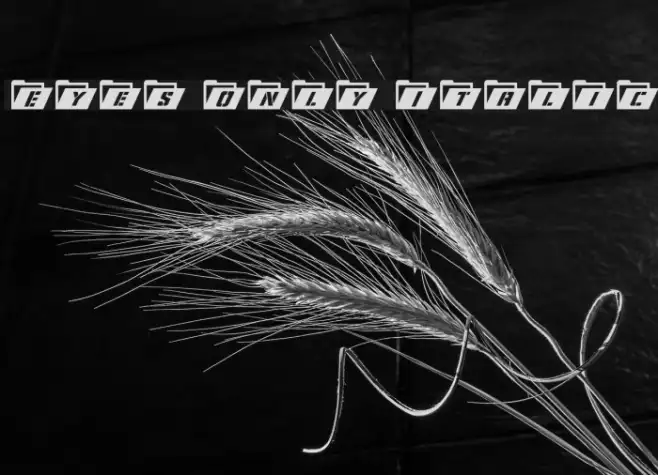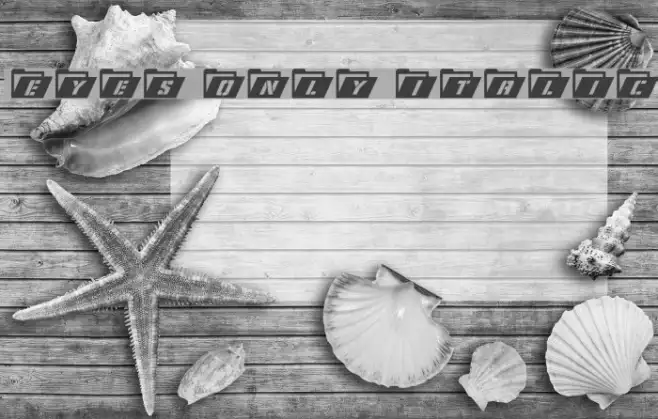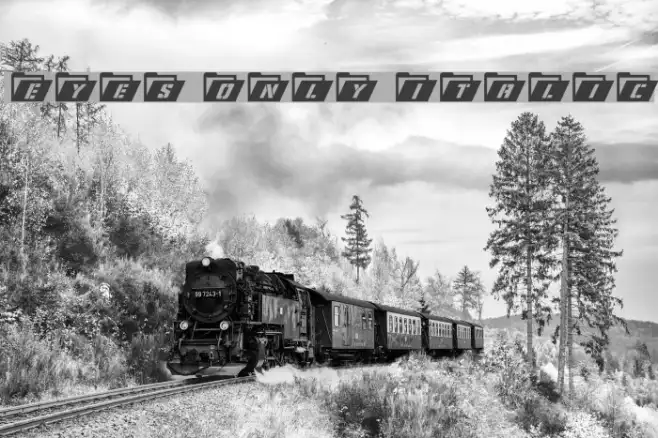
Eyes Only Italic Font
Eyes Only Italic Description
This font features a bold, italicized style with a distinct, futuristic flair. Each character is enclosed in a unique, angular shape that resembles a folder or tab, giving it a tech-inspired appearance. The letters are slanted forward, enhancing the dynamic and fast-paced feel. The strokes are thick and consistent, providing a strong visual impact. The numbers and special characters follow the same design principles, ensuring uniformity across all glyphs. This font is ideal for projects that require a modern, edgy look.
Proposed ProjectsIdeal for tech branding, video game titles, futuristic posters, and digital media.